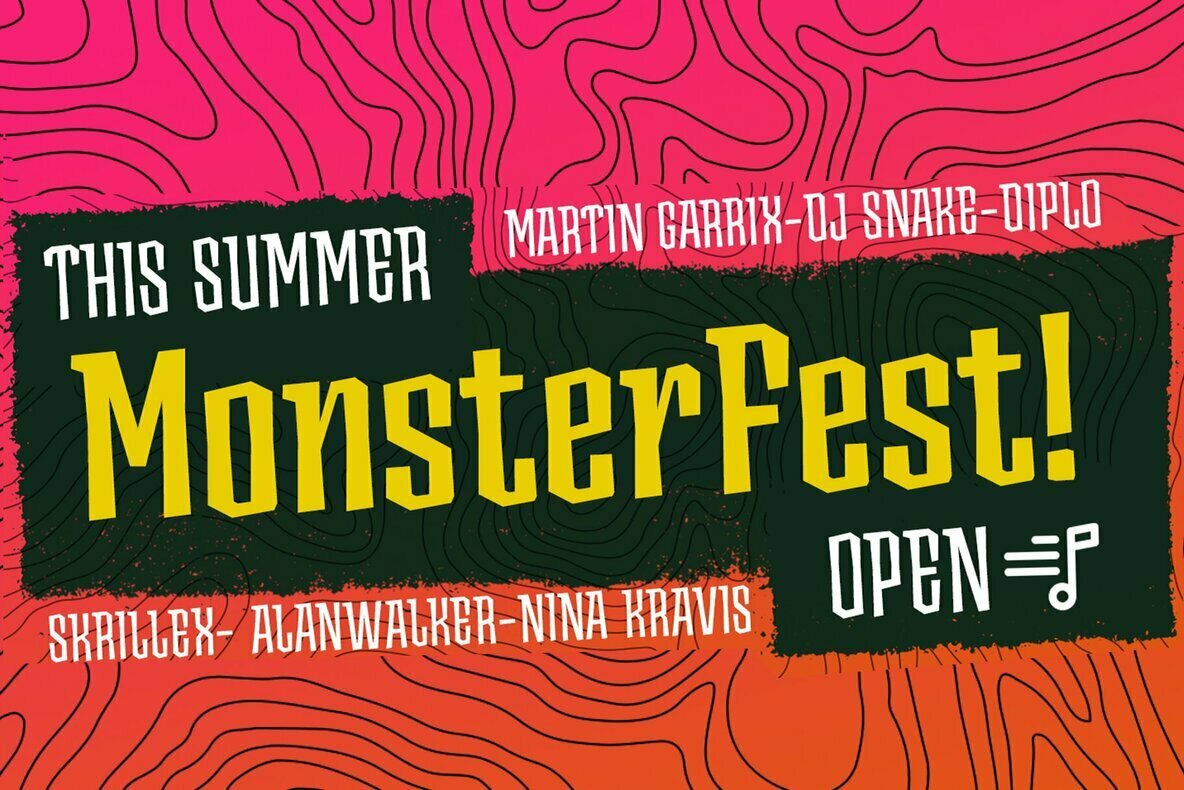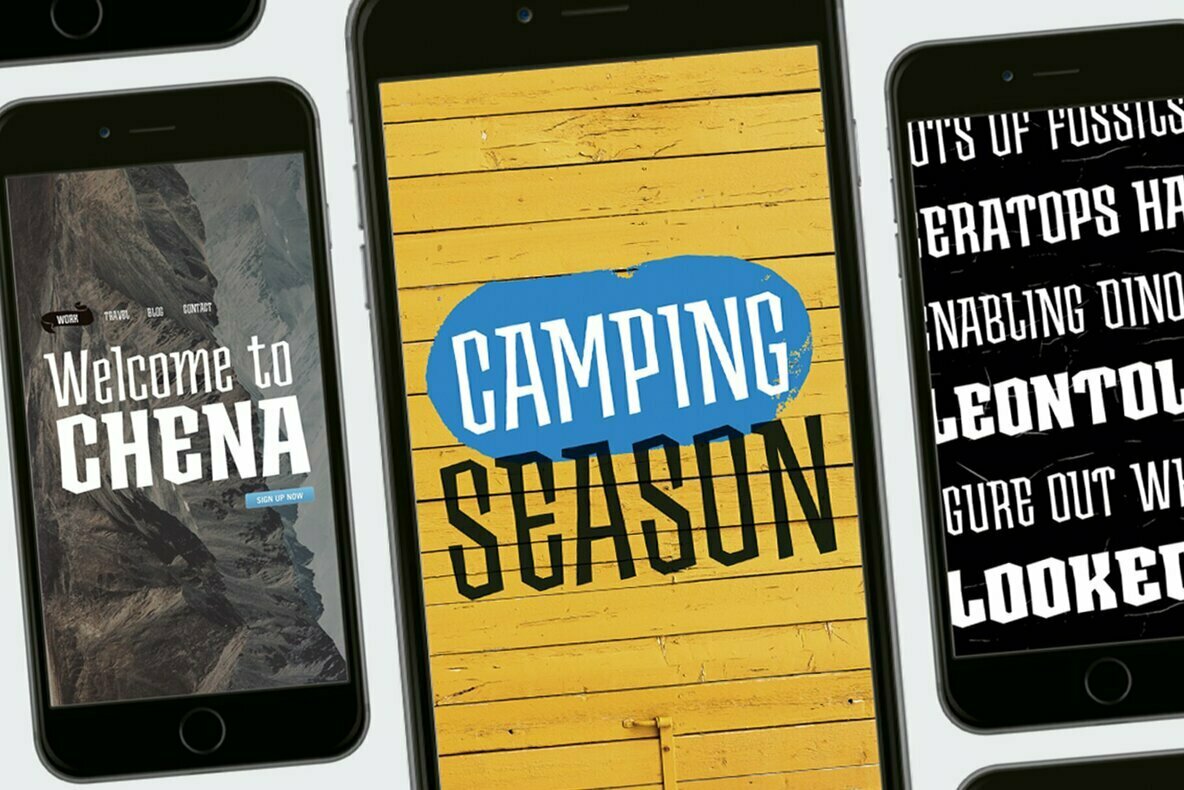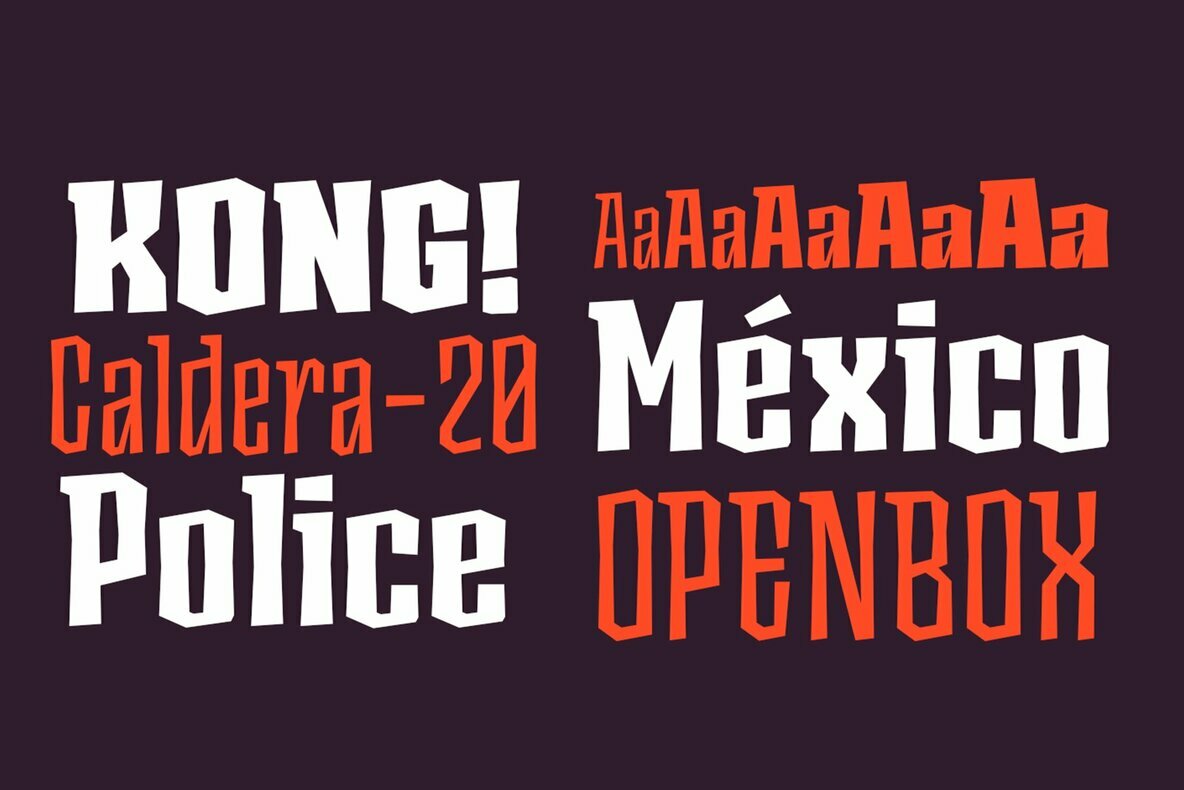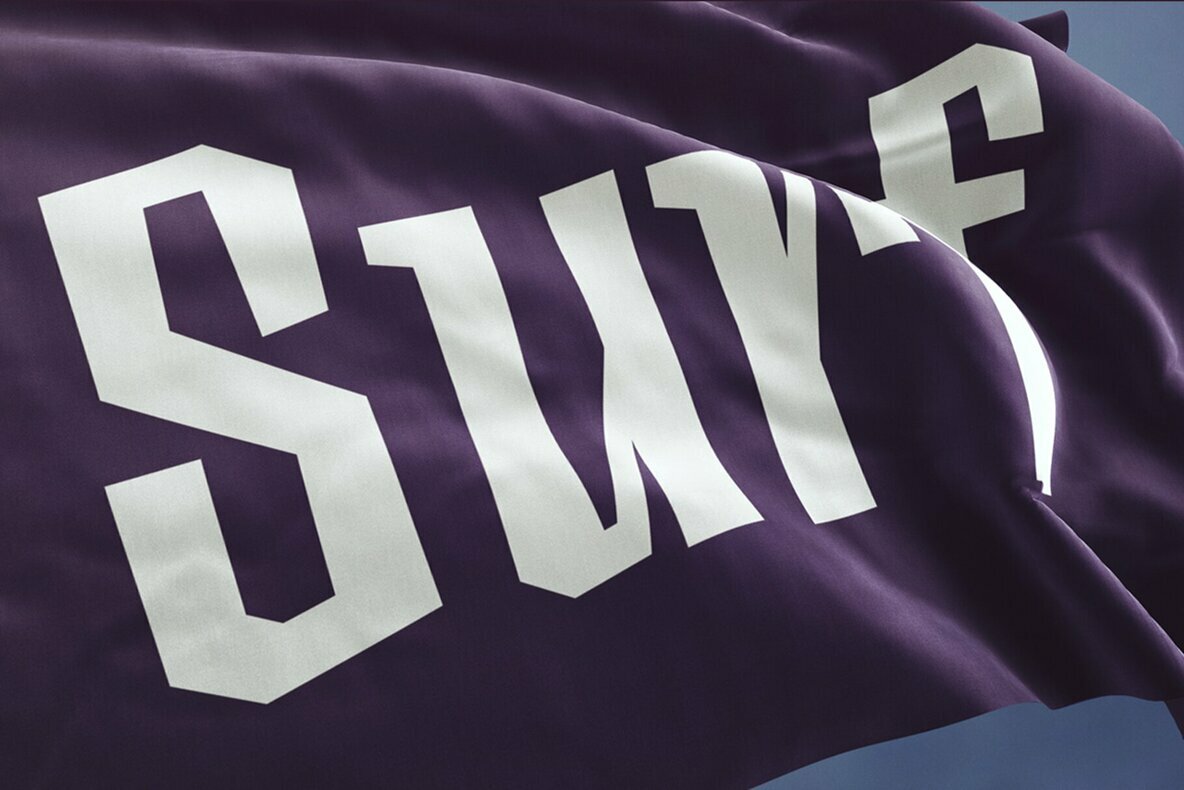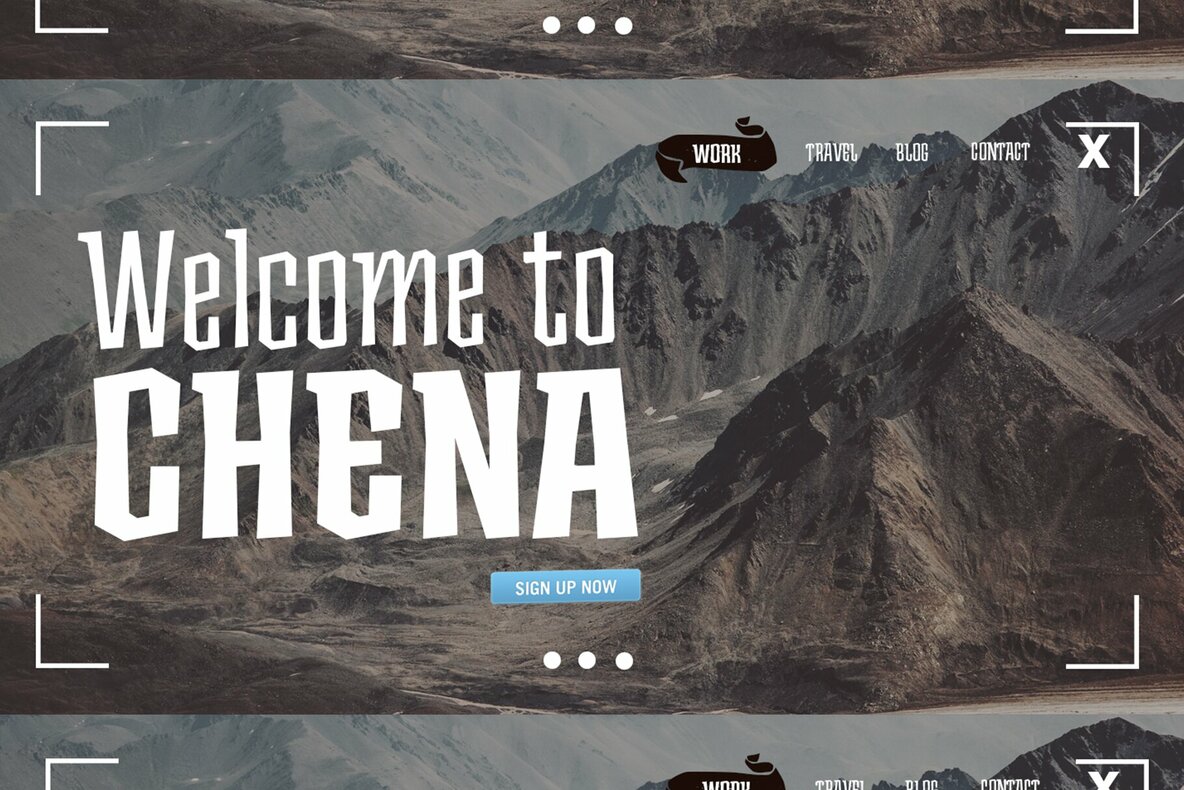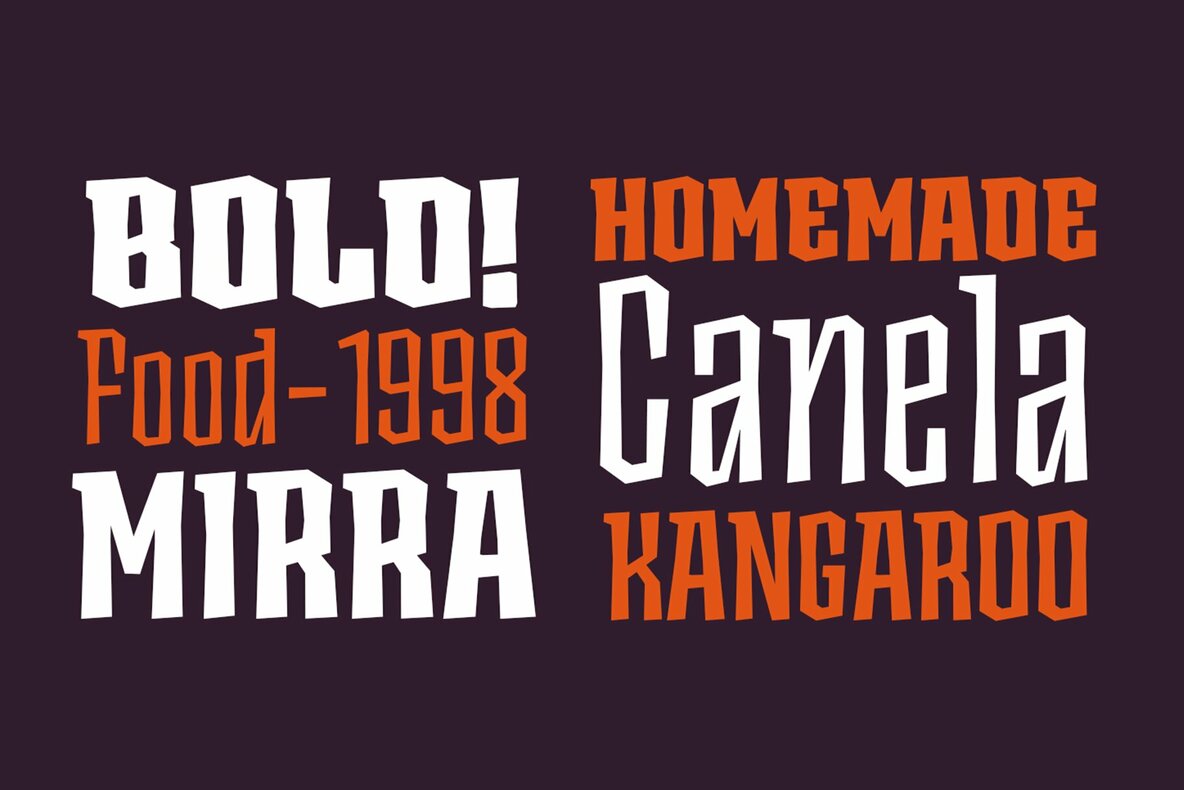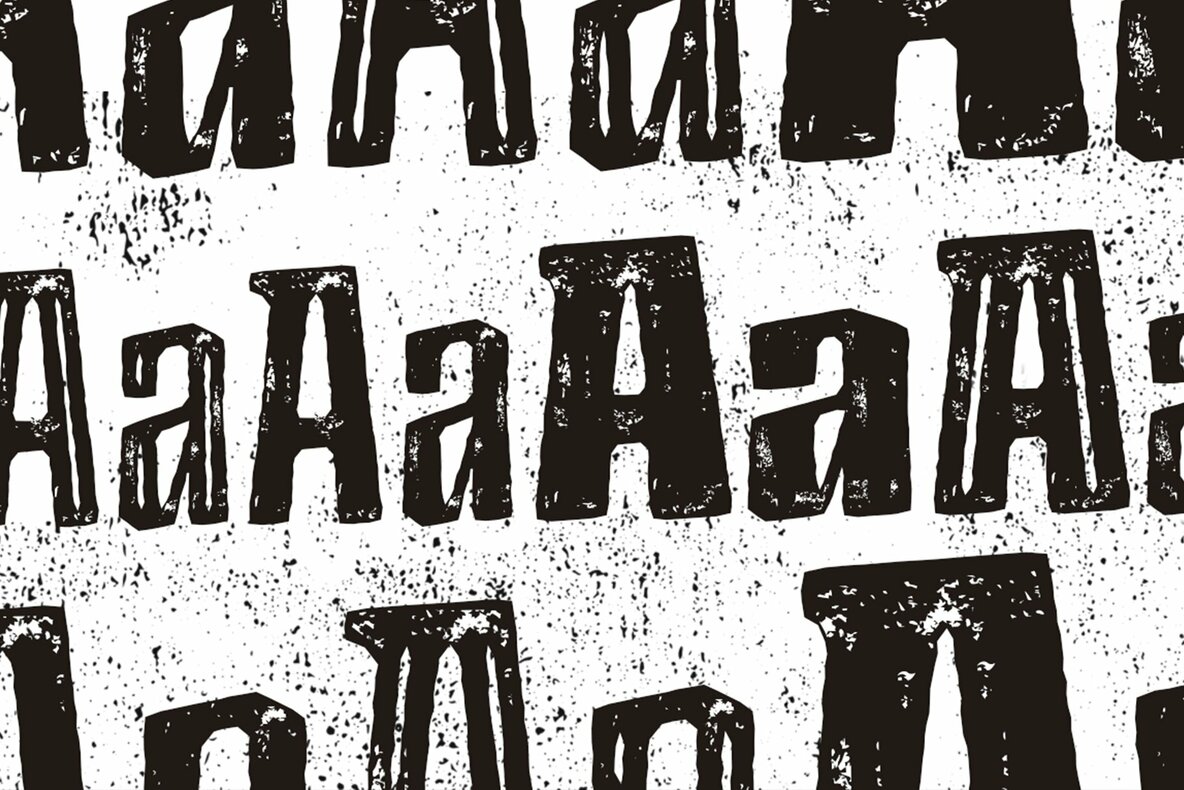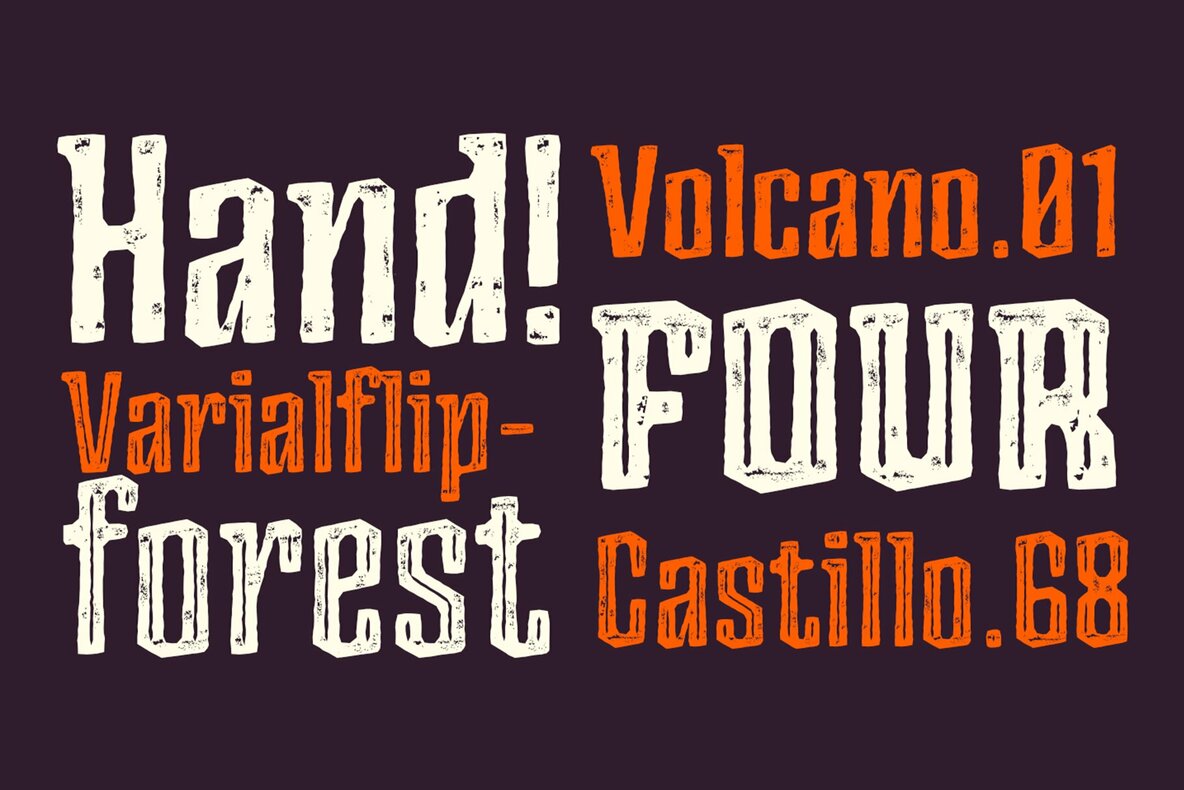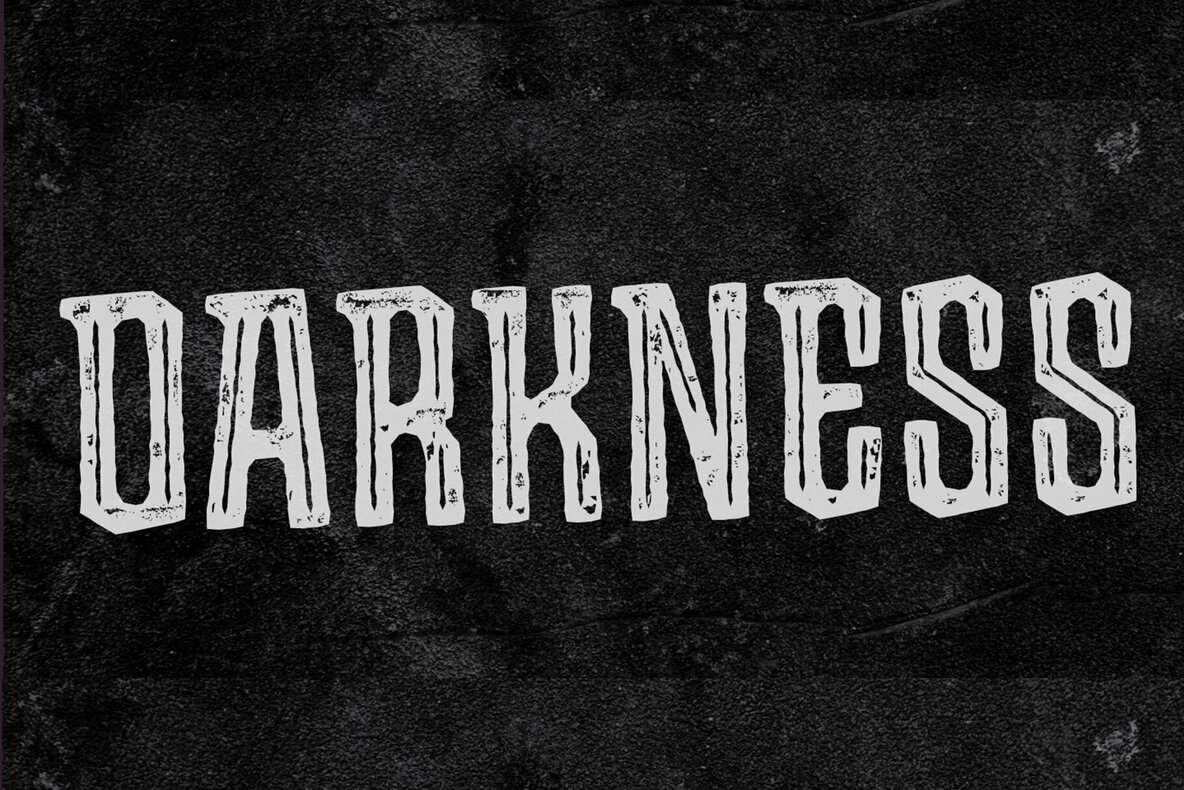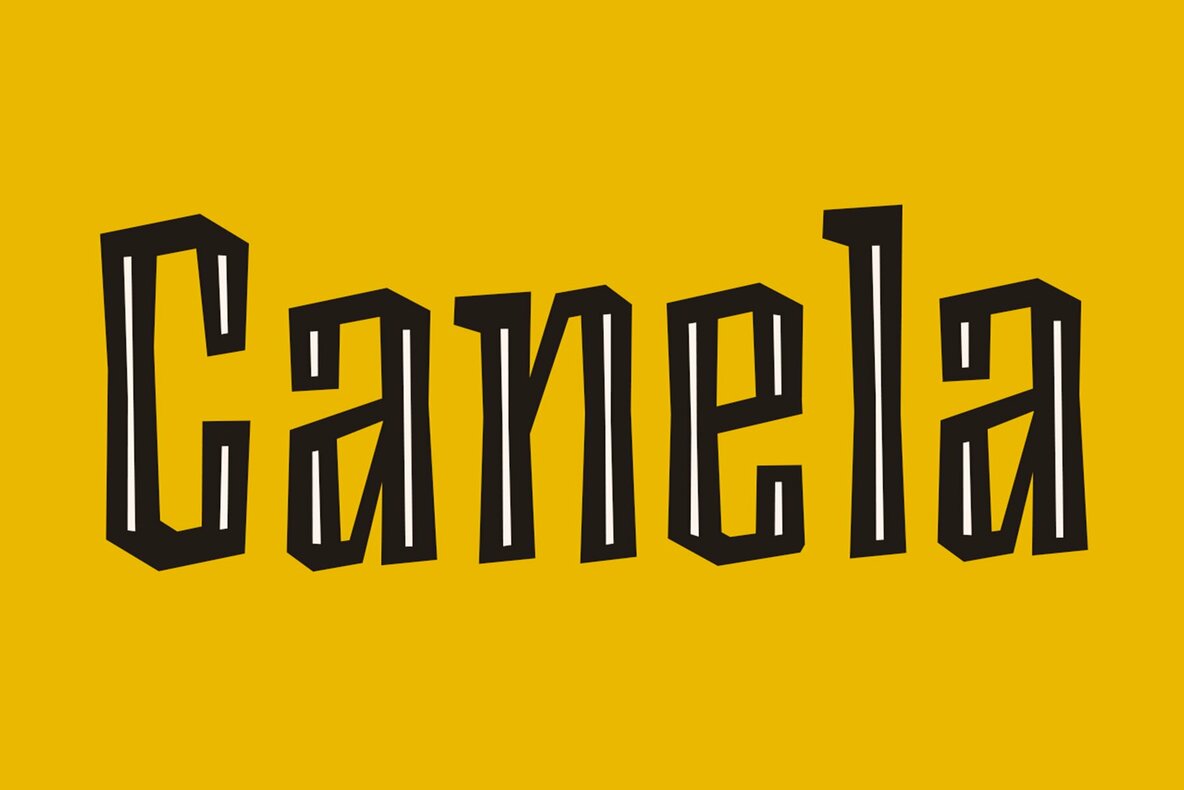
Ancoa Font
Ancoa, a dynamic sans serif display typeface, commands attention with its rugged form and adaptability. Ideally suited for posters and diverse design projects, Ancoa offers a distinct visual presence across its numerous styles.Ancoa: Versatile Sans Serif Display Typeface